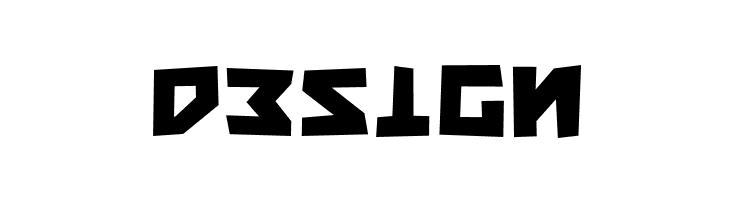
Fortune Soldier Punch Italic Font
- Font: Fortune Soldier Punch Italic
( Fonts by Iconian Fonts - Daniel Zadorozny )
A bold, angular font with a grunge aesthetic and modern edge.